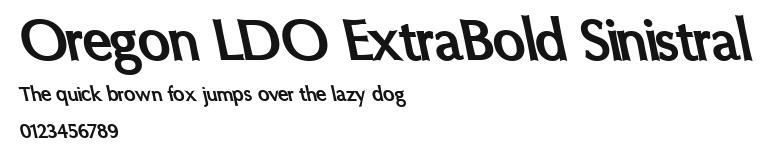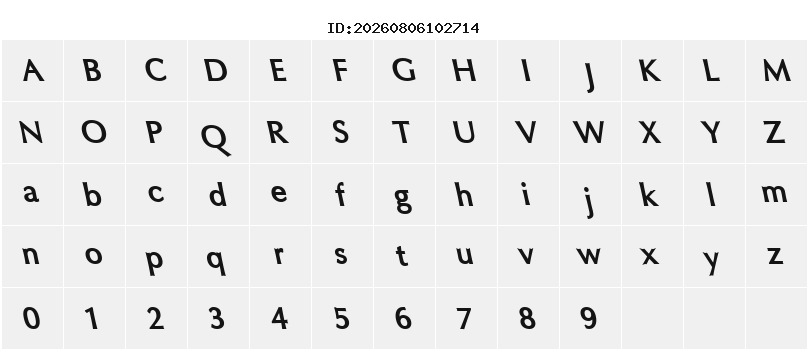
• Font Name: Oregon LDO ExtraBold Sinistral
• Designer: Luke Owens
• Manufacturer: LDO Fonts
About Oregon LDO ExtraBold Sinistral.ttf
Oregon LDO ExtraBold Sinistral.ttf is a modern, elegant sans-serif font designed for ultimate readability and visual harmony. Perfect for branding, headlines, web design, and print materials.